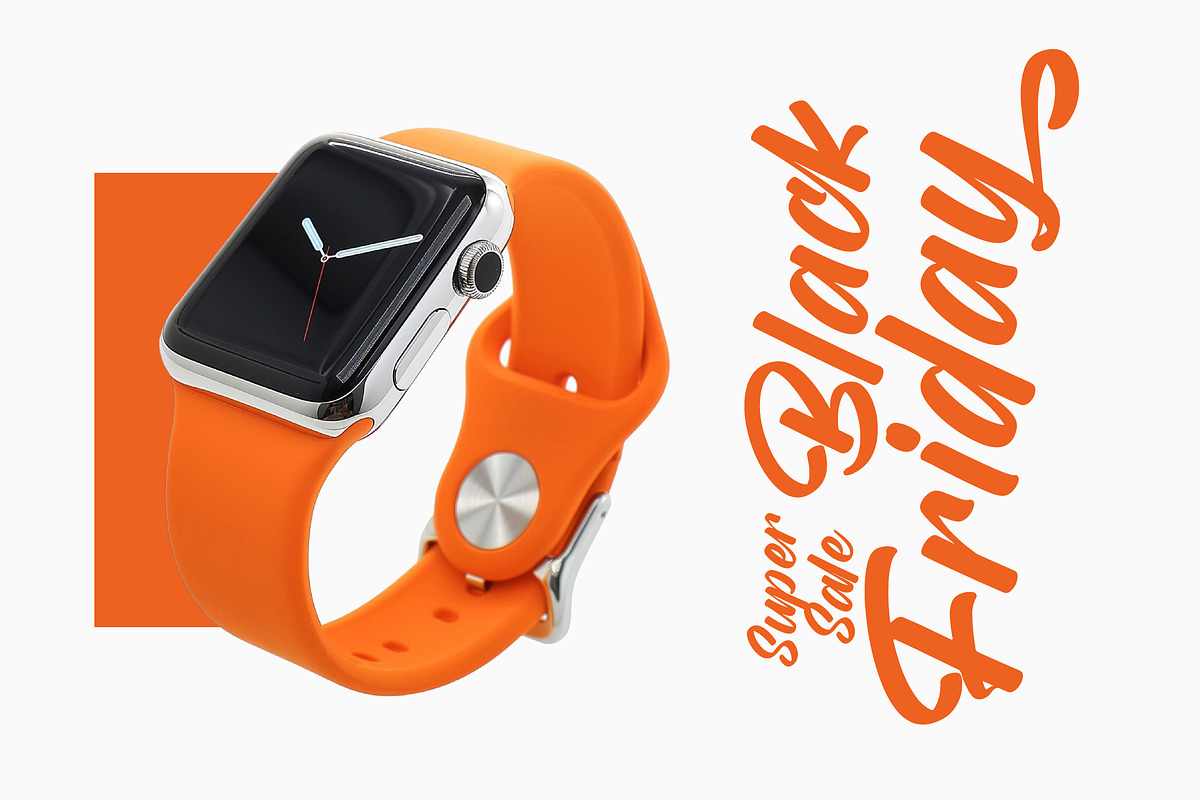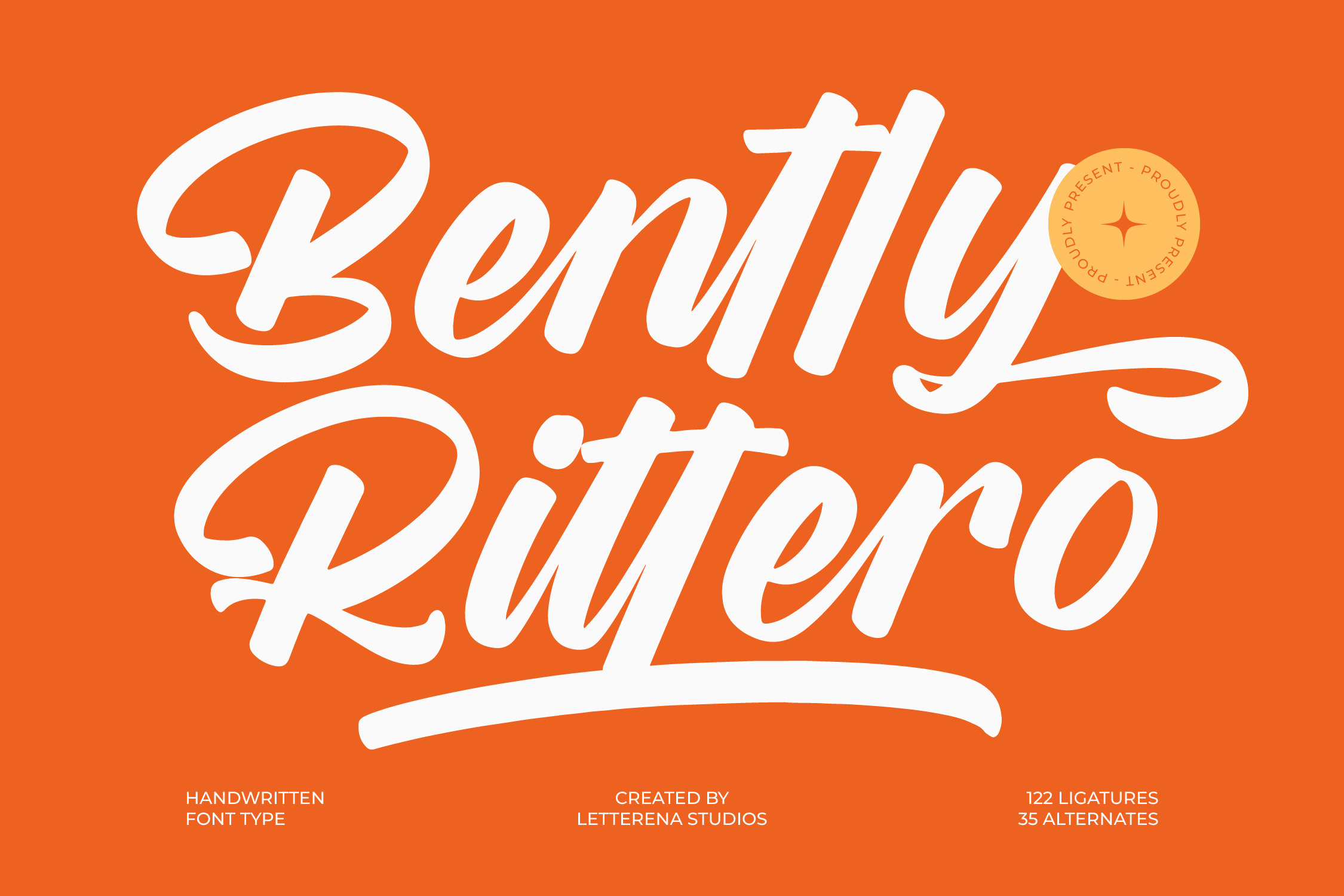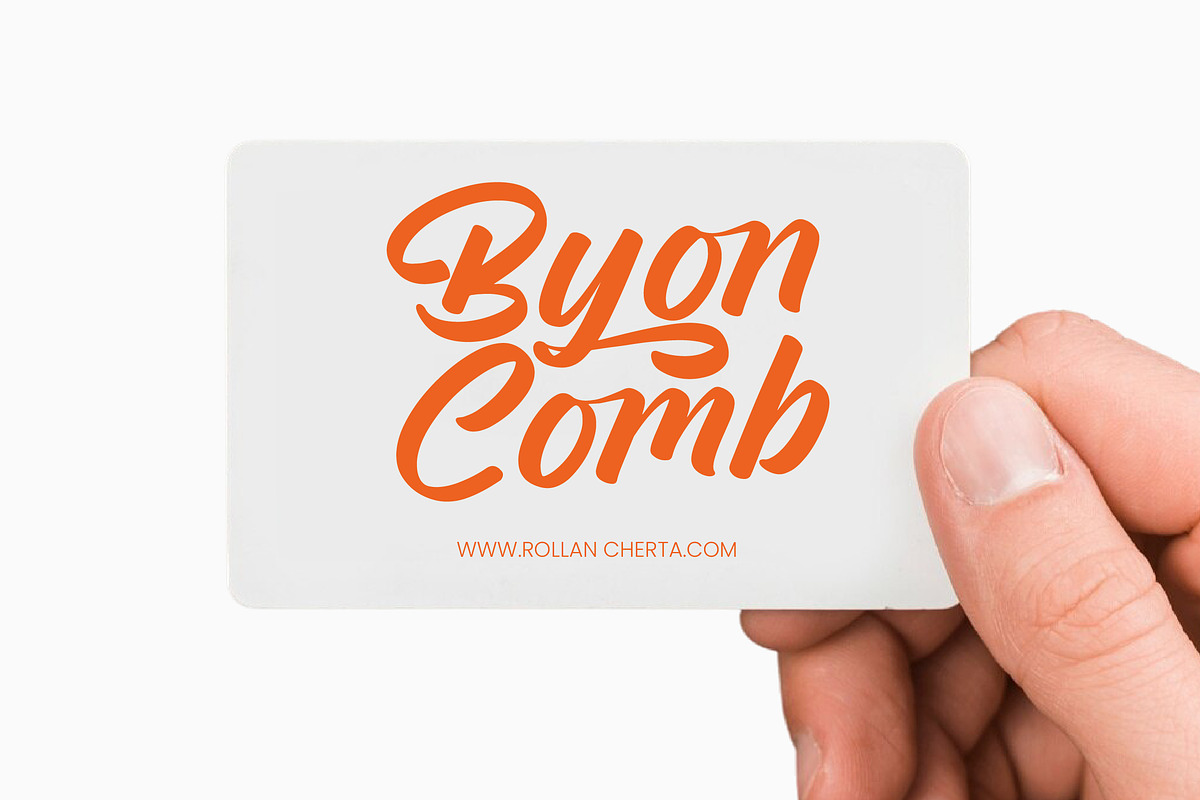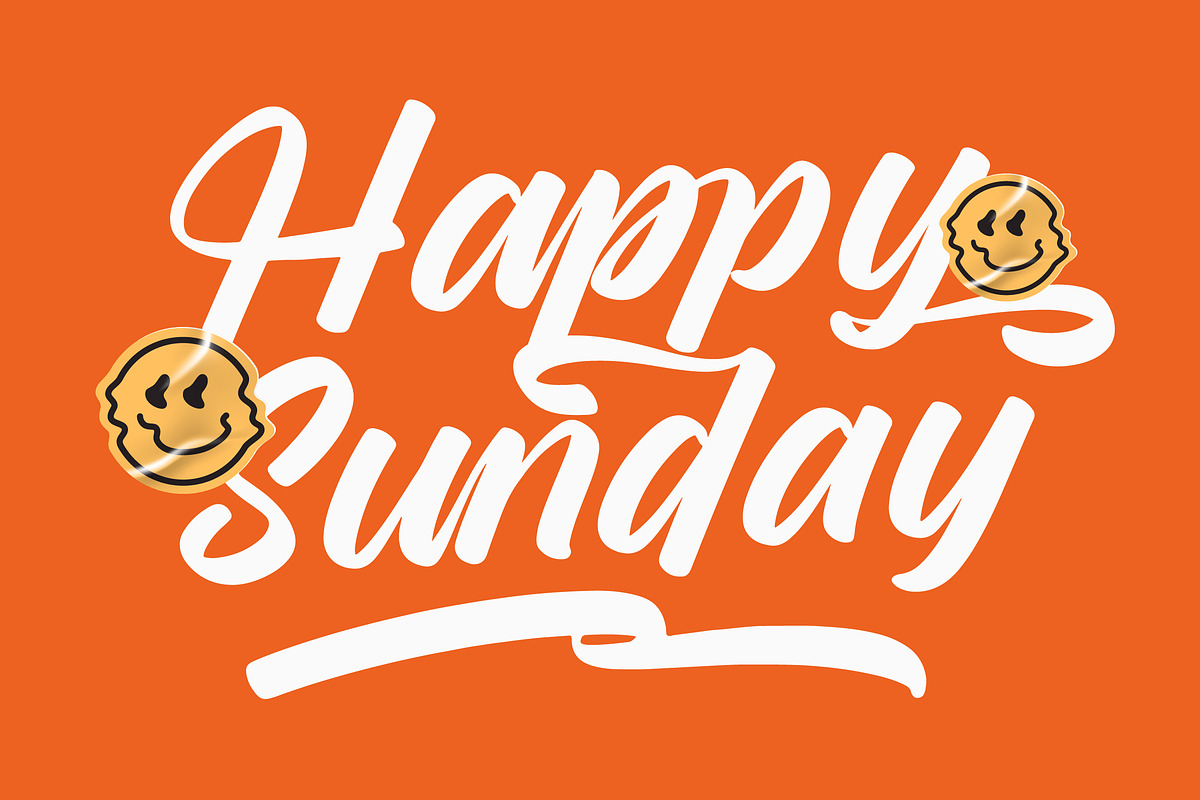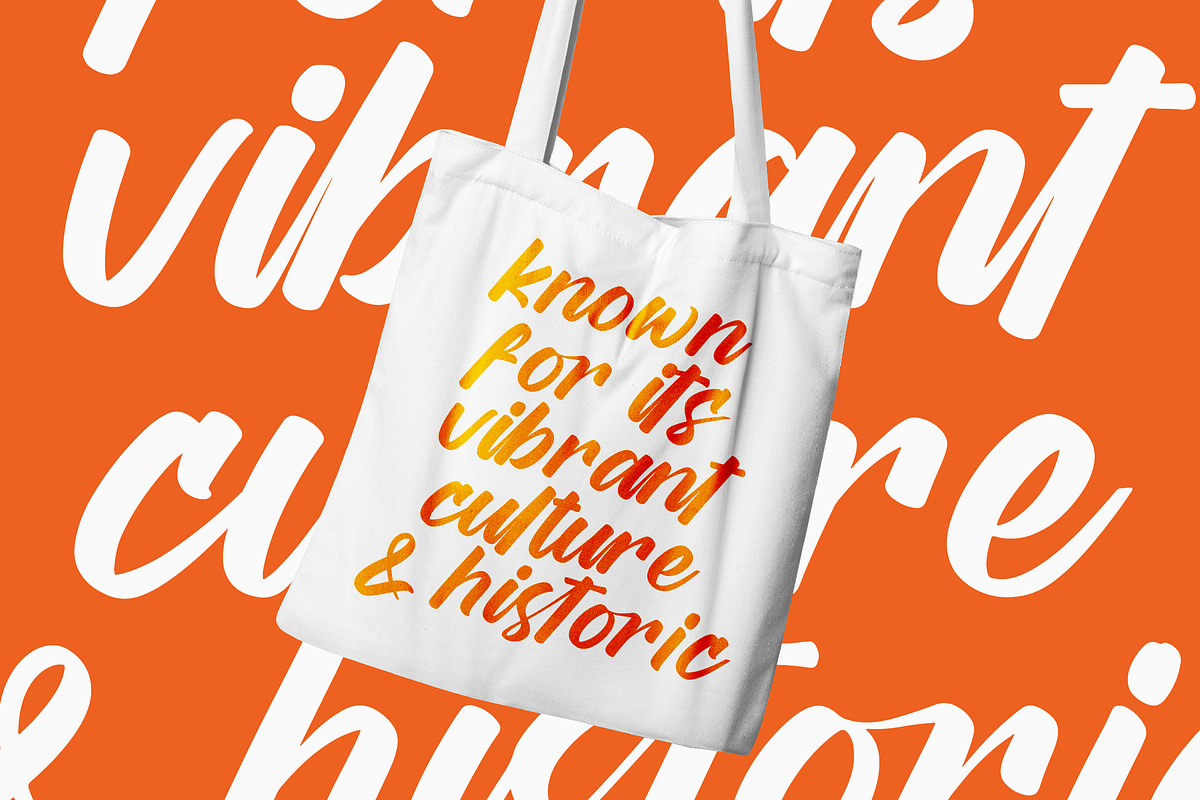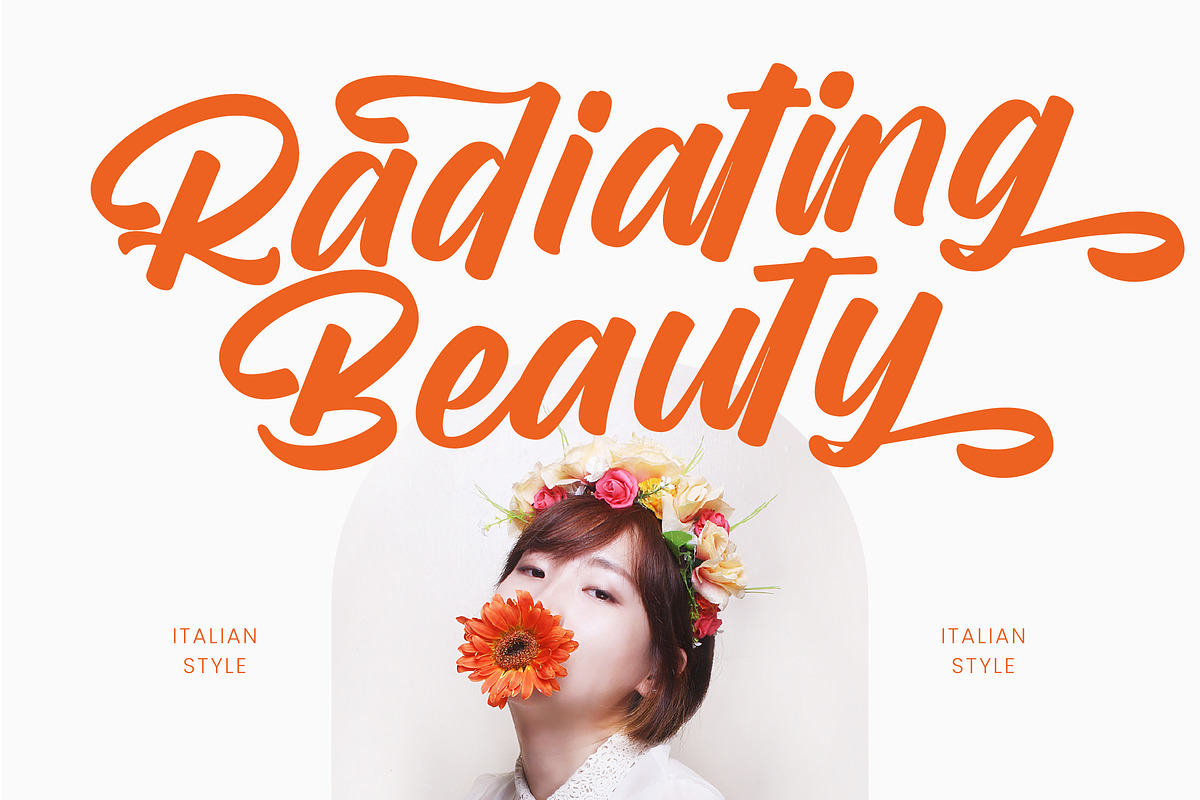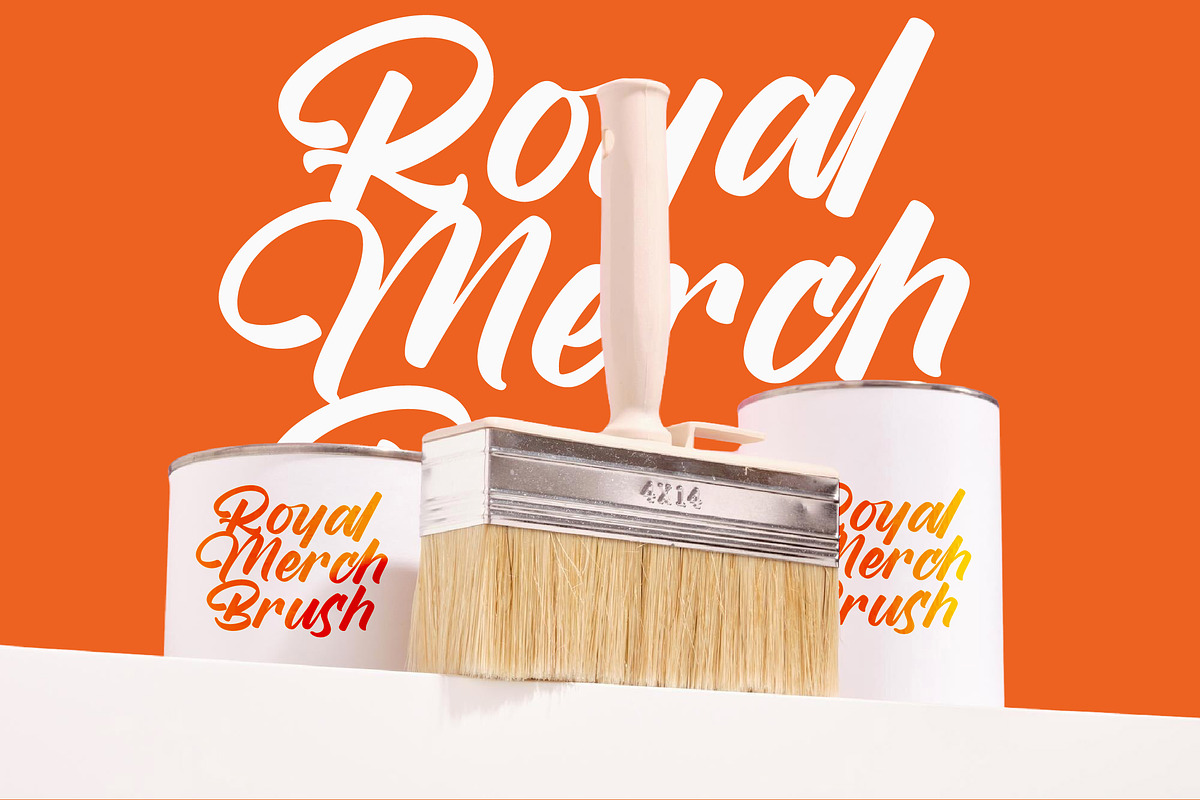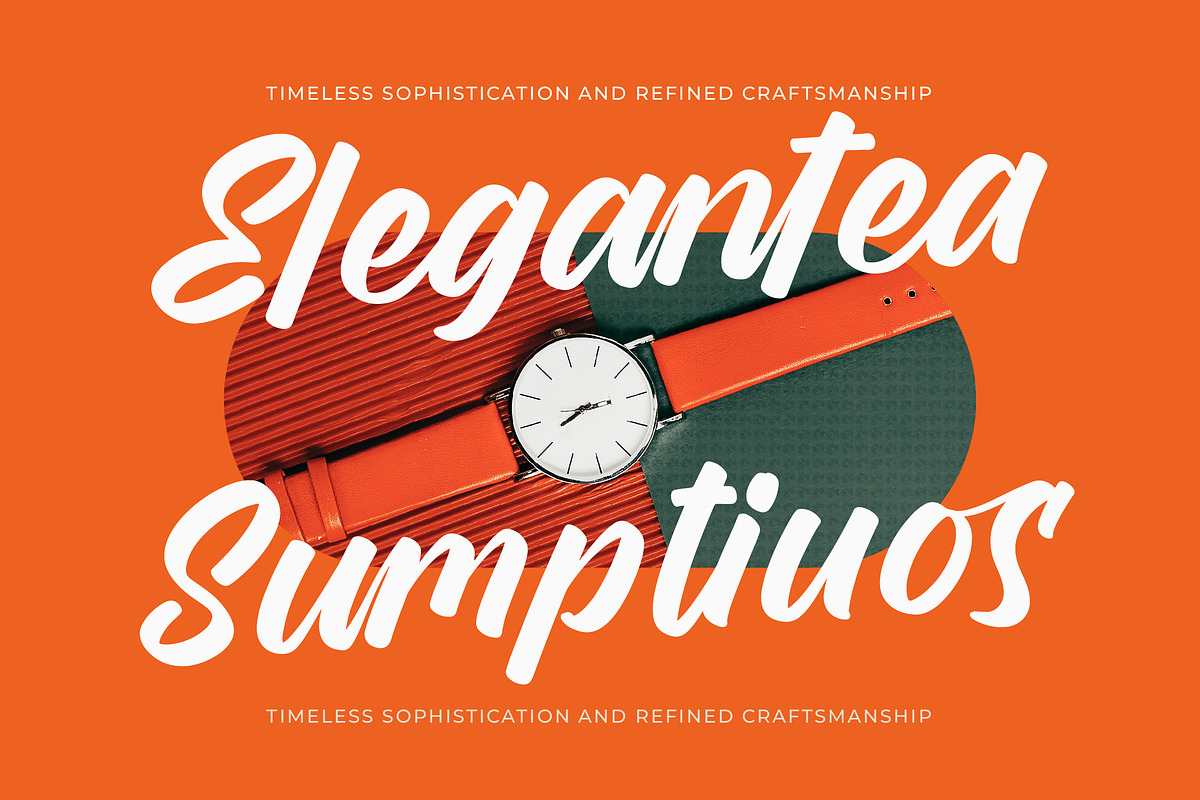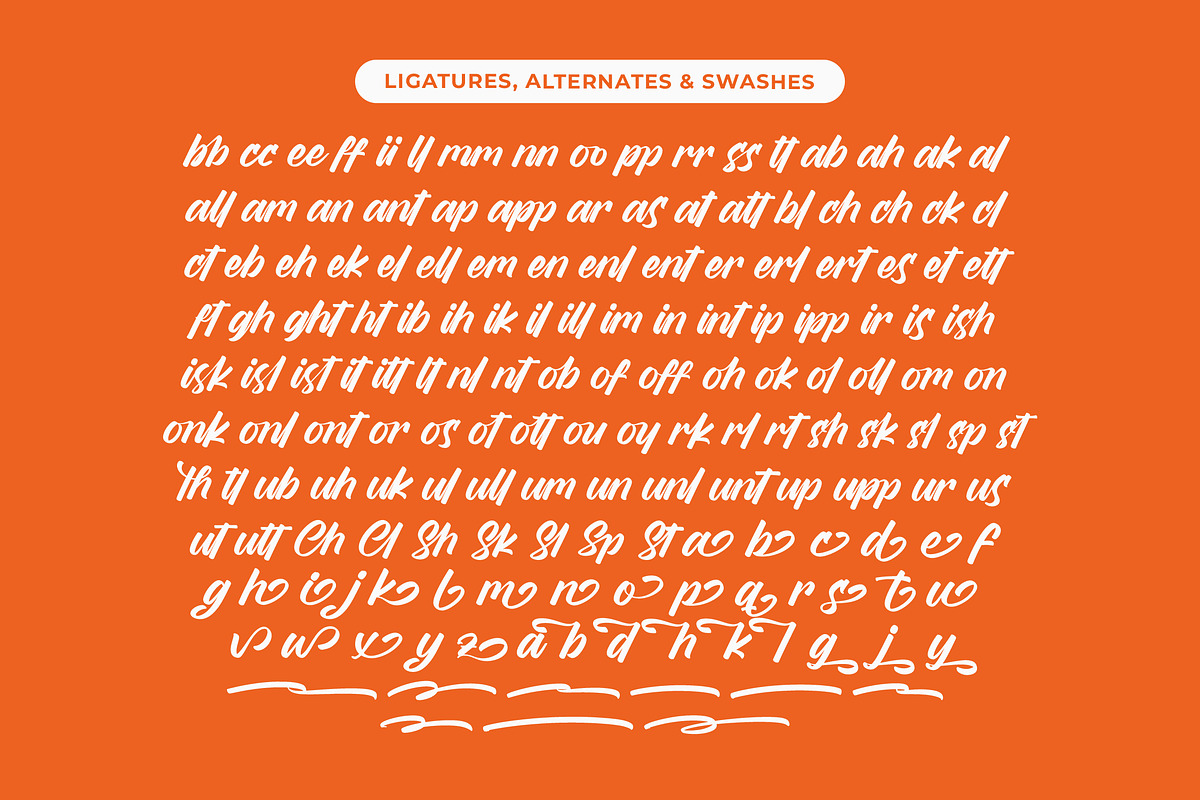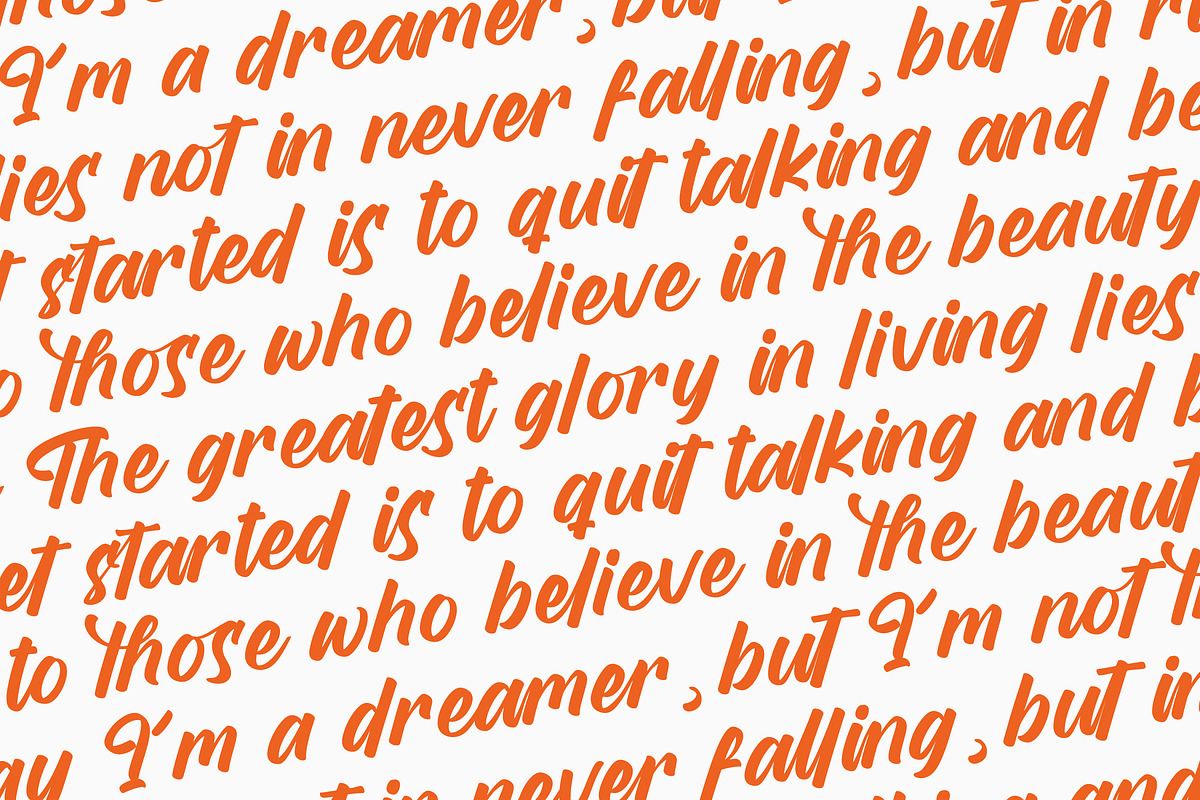
Bently Rittero Handwritten Font
Bently Rittero - Handwritten Font , from Letterena, is a Luxury Script font, suitable for any projects such as: logos, branding projects, homeware designs, product packaging, mugs, quotes, posters, shopping bags, t-shirts, book covers, name card, invitation cards, greeting cards, label, photography, watermark, special events, and all your other luxury and beautiful projects that need a Luxury Script taste.
- 122 Ligature 35 Alternate & Swashes